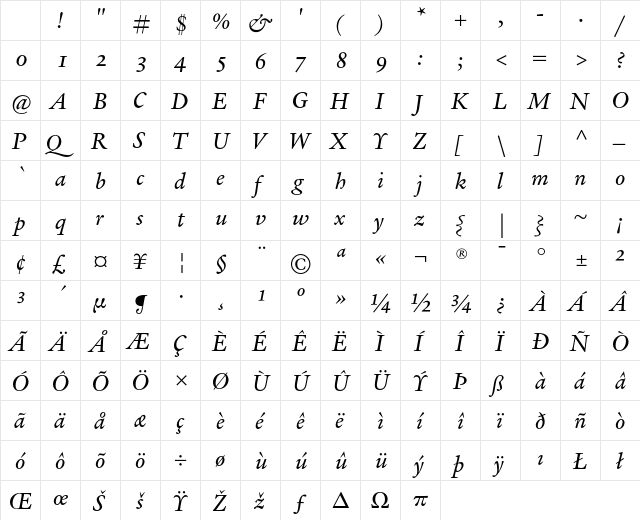
Complete Verdigris MVB TF Italic glyph index. Displaying only characters natively supported by Verdigris MVB TF Italic font.
Verdigris MVB TF is a composed and adaptable typeface that performs quietly and consistently across a wide range of design contexts. The slanted form adds forward momentum and visual energy.